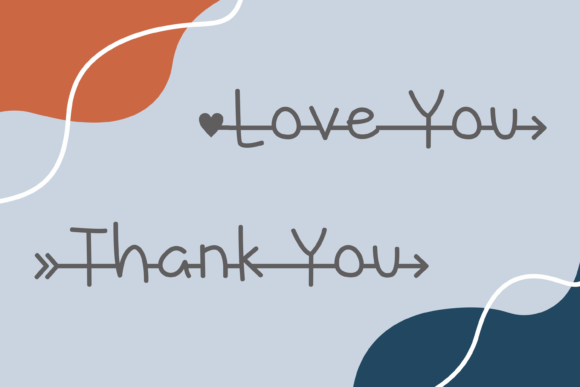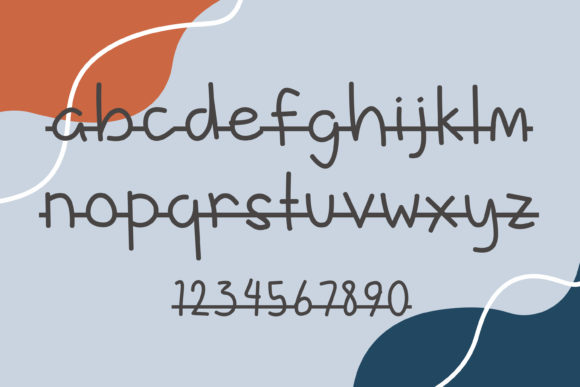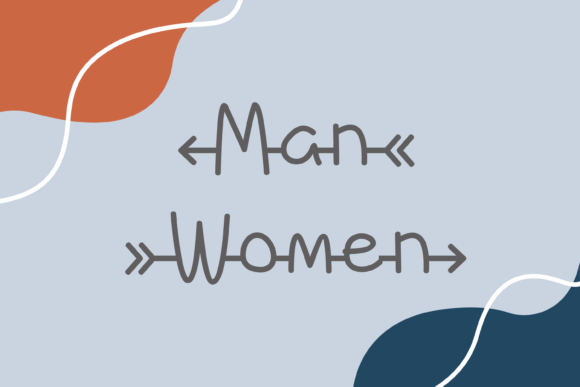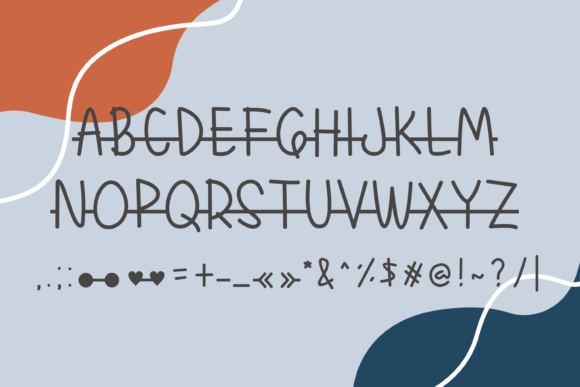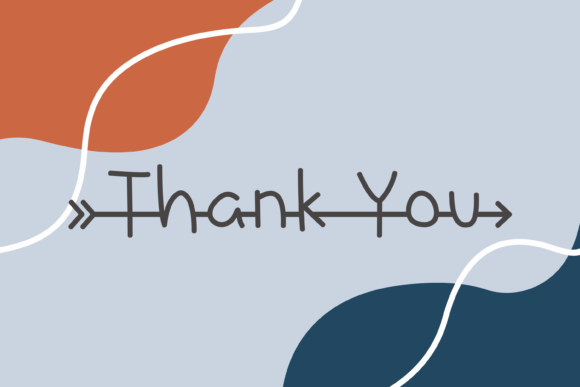
Introducing Arrows Font: The Ultimate Decorative Font for Your Creative Projects
Are you tired of using the same old fonts for your designs and crafts? Look no further! Arrows Font is here to revolutionize your creative projects with its stylish and cute decorative charm. This amazing font features arrows-themed characters that will add an incredibly joyful touch to your work, making it perfect for a wide range of crafty ideas.
What is Arrows Font?
Arrows Font is a unique and creative typeface that is designed to add a playful and whimsical touch to your designs. As its name suggests, the font features arrows-themed characters, including letters, numbers, and symbols, all designed to resemble arrows in various shapes and sizes. The result is a font that is both stylish and fun, perfect for adding a personal touch to your projects.
Key Features of Arrows Font
• Arrows-themed characters: The font features a wide range of arrows-themed characters, including letters, numbers, and symbols, all designed to add a playful touch to your designs.
• Stylish and cute design: The font has a stylish and cute design that is perfect for adding a personal touch to your projects.
• Decorative and versatile: Arrows Font is a decorative font that can be used for a wide range of crafty ideas, from letterheads and titles to stationery and more.
• Easily readable: Despite its decorative nature, Arrows Font is easily readable, making it perfect for use in titles, headings, and other design elements.
Uses of Arrows Font
Arrows Font is a versatile font that can be used for a wide range of creative projects, including:
• Letterheads and titles: Use Arrows Font to create eye-catching letterheads and titles that will make your documents stand out.
• Stationery: Add a personal touch to your stationery, including greeting cards, invitations, and more, with Arrows Font.
• Crafting projects: Use Arrows Font to add a decorative touch to your crafting projects, including scrapbooking, DIY signs, and more.
• Digital designs: Arrows Font is perfect for use in digital designs, including social media graphics, blog posts, and more.
Benefits of Using Arrows Font
Using Arrows Font in your creative projects offers a range of benefits, including:
• Unique and creative designs: Arrows Font allows you to create unique and creative designs that will stand out from the crowd.
• High-quality design: Arrows Font is designed to high-quality standards, ensuring that your designs look professional and polished.
• Time-saving: Using Arrows Font can save you time and effort, as you can quickly and easily create professional-looking designs without having to spend hours designing from scratch.
Tips for Using Arrows Font
Here are some tips for using Arrows Font in your creative projects:
• Experiment with different colors: Arrows Font looks great in a range of colors, so don’t be afraid to experiment and find the perfect color for your design.
• Use it sparingly: While Arrows Font is a beautiful font, it can be overwhelming if used too much. Use it sparingly to add a touch of personality to your design.
• Pair it with other fonts: Arrows Font pairs well with a range of other fonts, so try pairing it with a simple sans-serif font for a contrasting look.
Arrows Font is a stylish and cute decorative font that is perfect for adding a personal touch to your creative projects. With its arrows-themed characters and versatile design, it’s perfect for a wide range of crafty ideas, from letterheads and titles to stationery and more. Whether you’re a designer, crafter, or DIY enthusiast, Arrows Font is a must-have font that will take your projects to the next level.